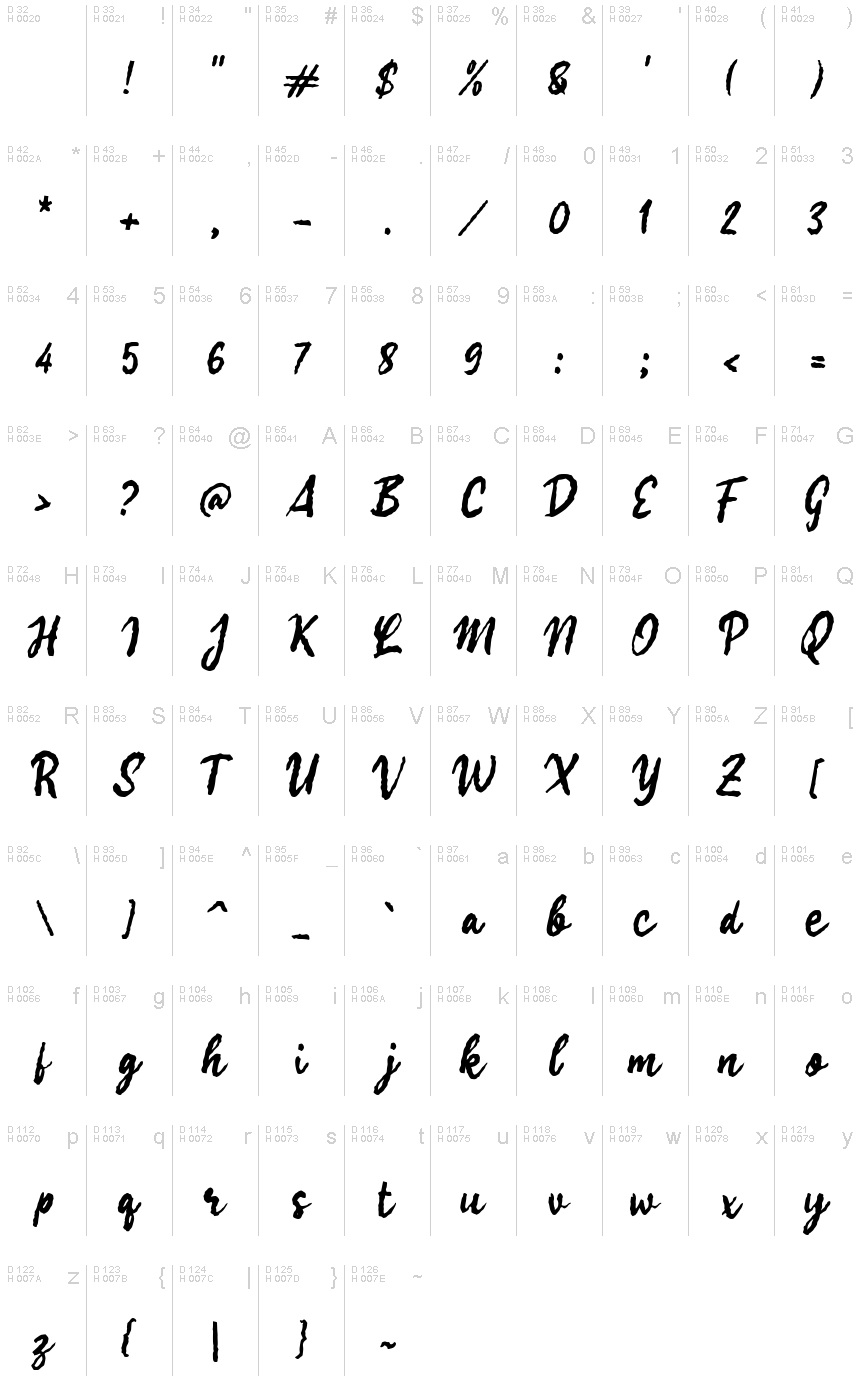
Gurih Script
Gurih Script font, crafted by designer wep, showcases a dynamic brush style that exudes both elegance and spontaneity. Its bold strokes and fluid lines offer a sense of movement and creativity, making it perfect for projects that require a personal touch.
This free font is ideal for logos, invitations, and branding materials where individuality and flair are paramount. The playful yet sophisticated appearance of Gurih Script ensures it stands out in any design context.